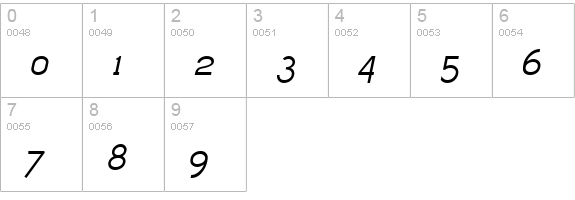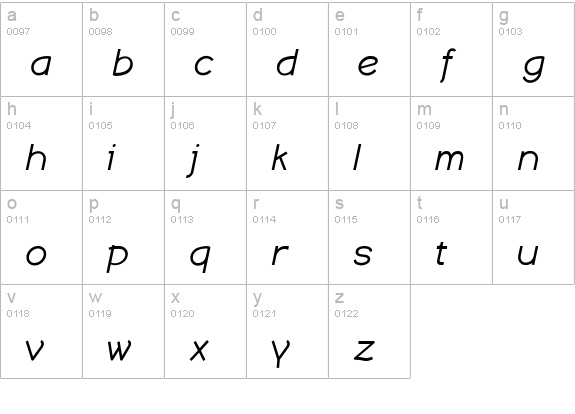
Dustismo Italic is a distinctive, italic variant in the Dustismo typeface family \xE2\x80\x94 well suited to design and typography projects.
Dustismo Italic font is a modern and stylish typeface that exudes elegance and sophistication. Its slanted design adds a touch of flair to any project, making it perfect for both digital and print applications. The flowing curves and unique letterforms of Dustismo Italic make it stand out from the crowd, adding a touch of personality to your designs. What's even better is that Dustismo Italic is available for free download at FontsMarket.com. This means you can easily access this beautiful font and use it in your projects without any cost. Whether you're working on a website, logo, or print materials, Dustismo Italic is a versatile font that will elevate your design to the next level. Download it today and see the difference it can make in your creative work!